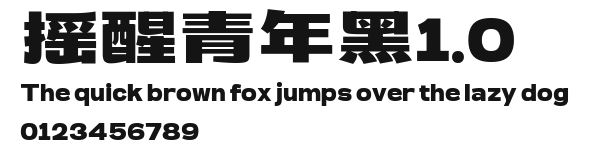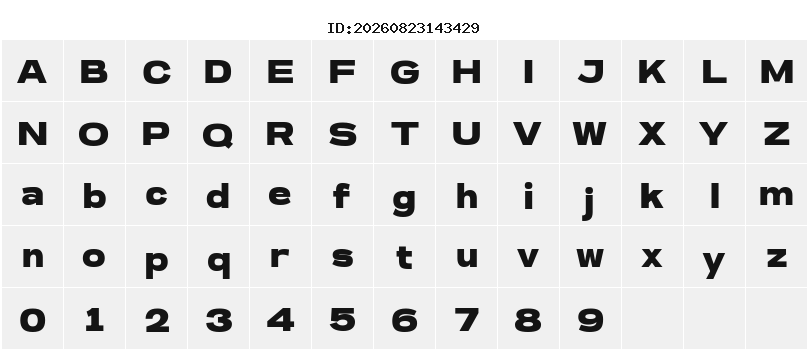
摇醒青年黑1.0 Preview
• Font Name: 摇醒青年黑1.0
• Full Font Name: 摇醒青年黑1.0 Regular
• Character Count: 7026
About 摇醒青年黑1.0.ttf
摇醒青年黑1.0.ttf is a modern, elegant sans-serif font designed for ultimate readability and visual harmony. Perfect for branding, headlines, web design, and print materials.